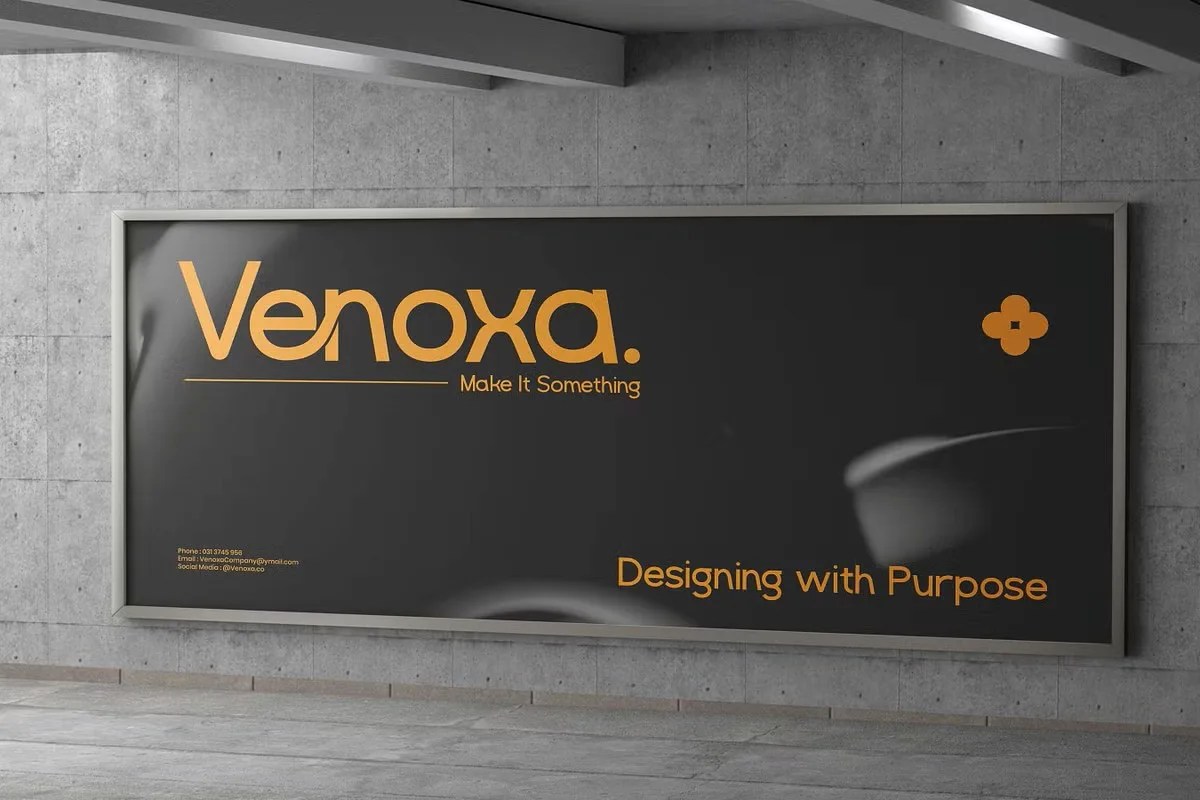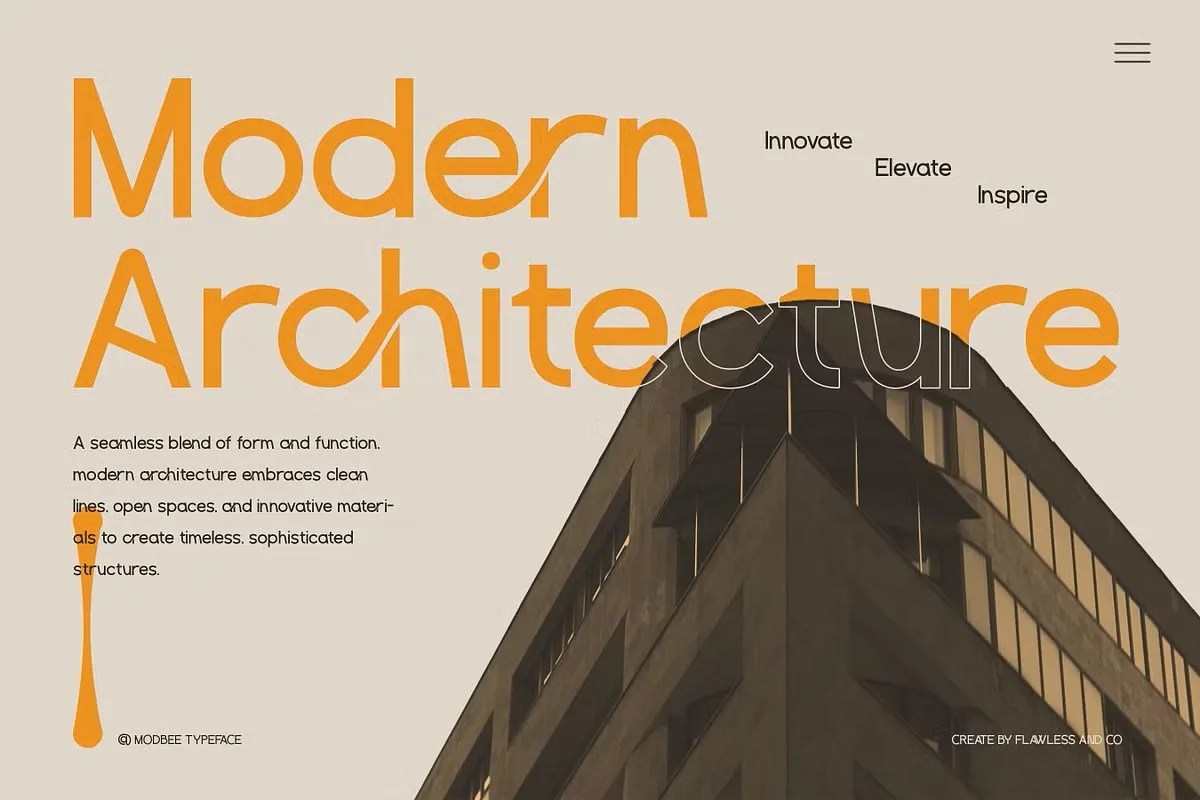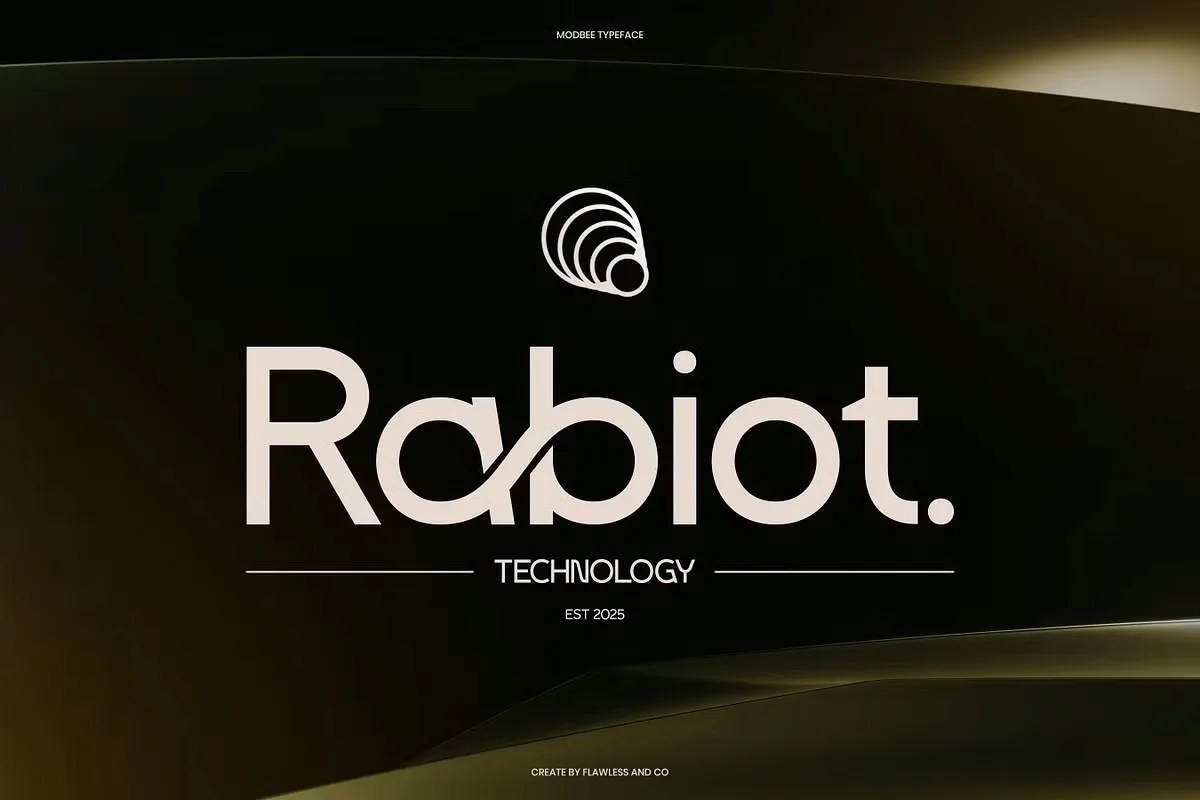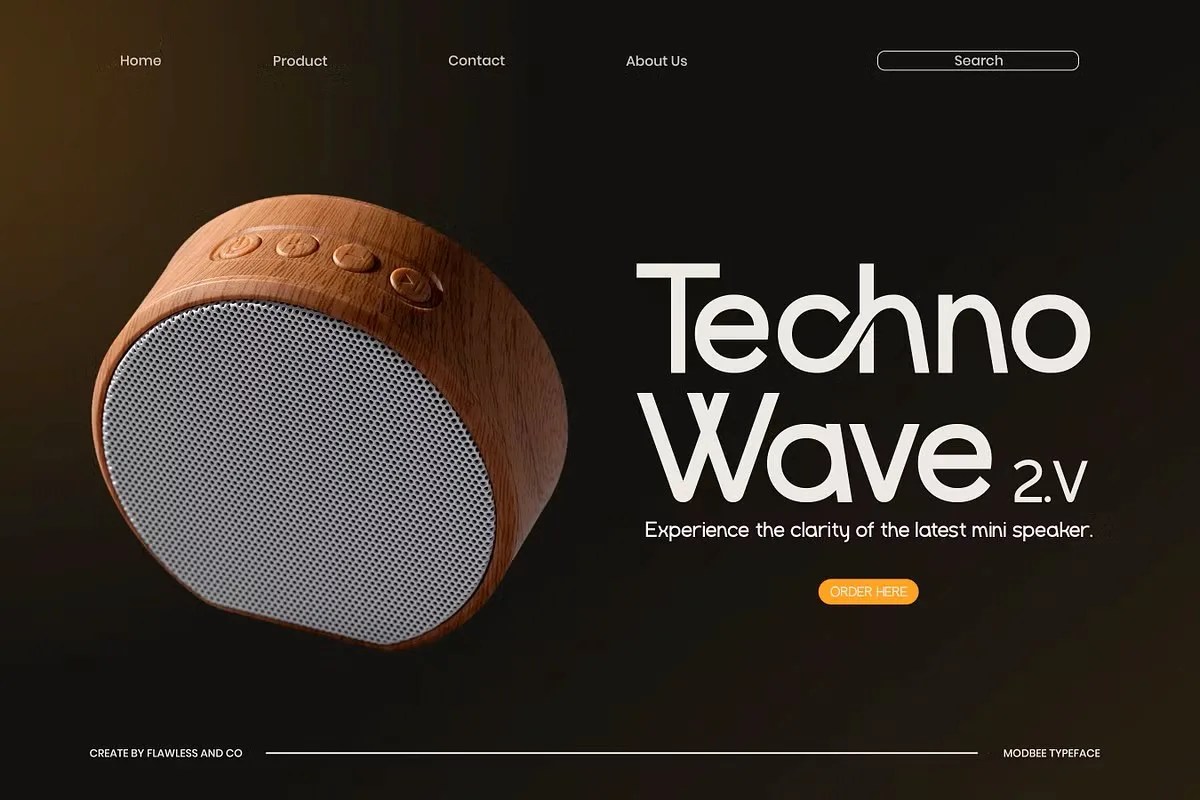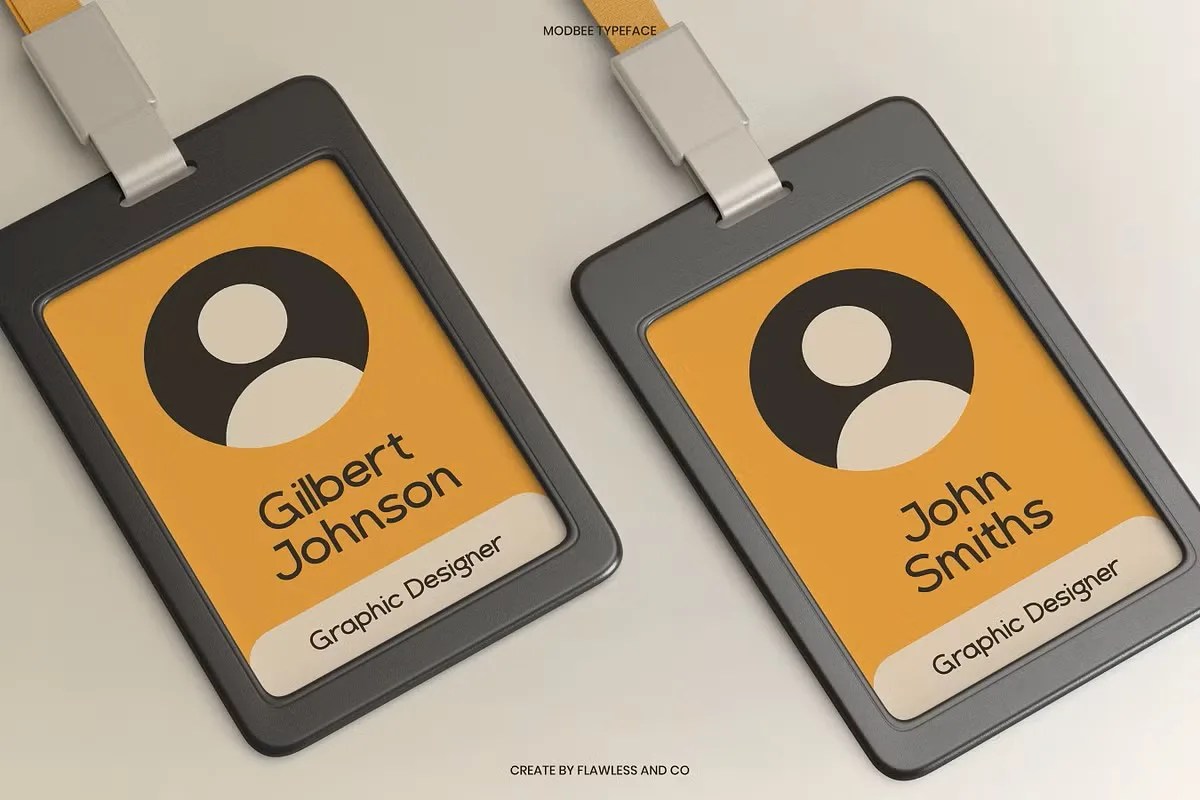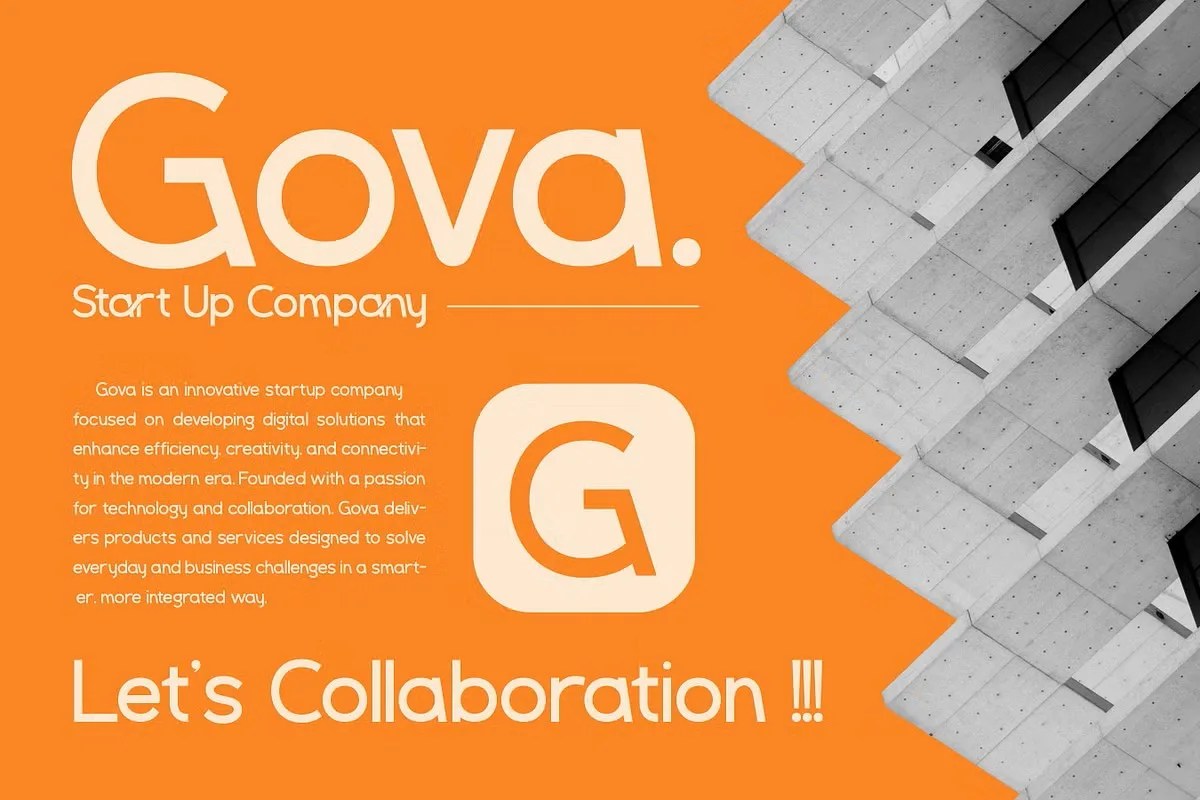
Modbee by Flawless And Co. This is a playful and unique geometric sans serif font that is full of personality. It masterfully combines clean, modern lines with a friendly and approachable character. The font draws clear inspiration from modular shapes and crisp, uniform angles. This design choice gives Modbee a distinctive, almost futuristic feel. It is the perfect font for brands that want to appear both innovative and completely welcoming at the same time.
This font is a fantastic choice for forward-thinking projects. Specifically, its clean structure is perfect for tech startups and software application logos. It communicates a sense of innovation and efficiency. Furthermore, this geometric sans serif font works incredibly well for modern branding and advertising campaigns. Its playful side also makes it suitable for contemporary children’s products or creative event posters. It truly offers a unique blend of professionalism and fun, adapting to a wide range of creative challenges.
• Playful geometric sans serif style
• Features clean lines and modular shapes
• Ideal for tech logos, branding, and posters
• Adds an innovative yet friendly feel
Modbee